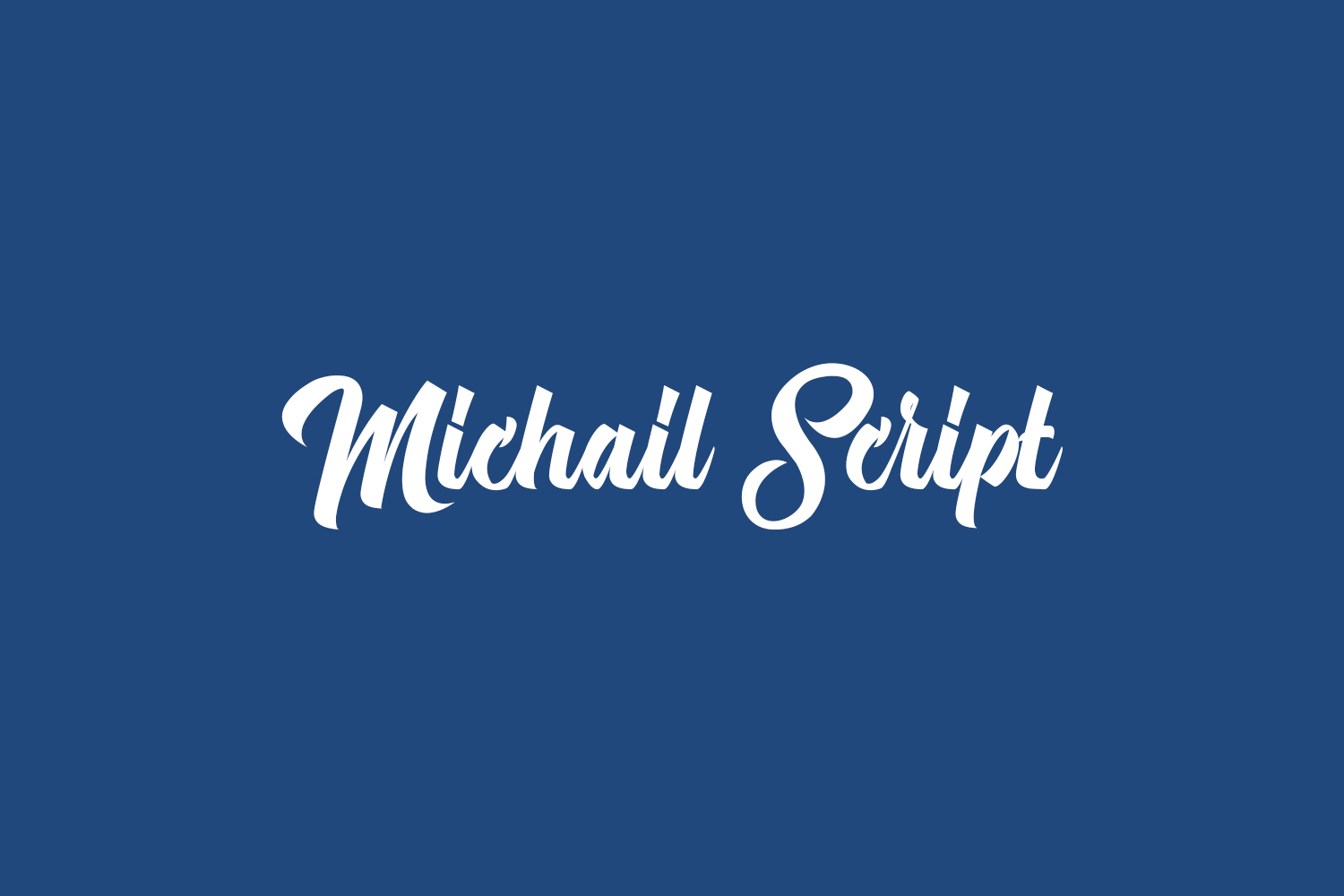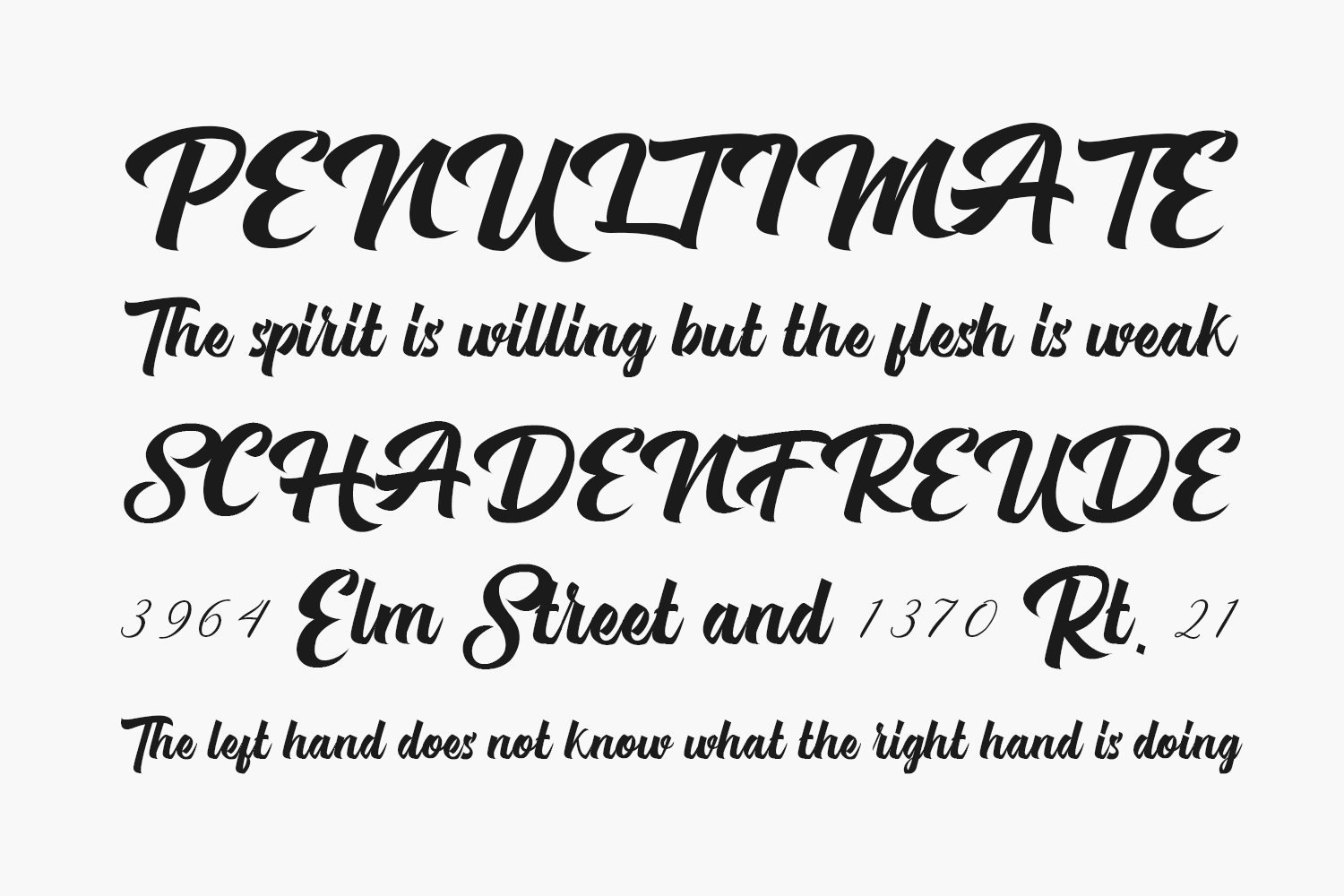
Michail Script Free Font is a striking family of six. The fonts are layered so it can generate interesting designs. It is suitable for young, passionate designs such as logos, t-shirts, branding, and various other design purposes. Michail Script Free Font was designed by Debut Studio is a demo and free for personal use only. Please purchase the full version for commercial use.
Designed by Debut Studio